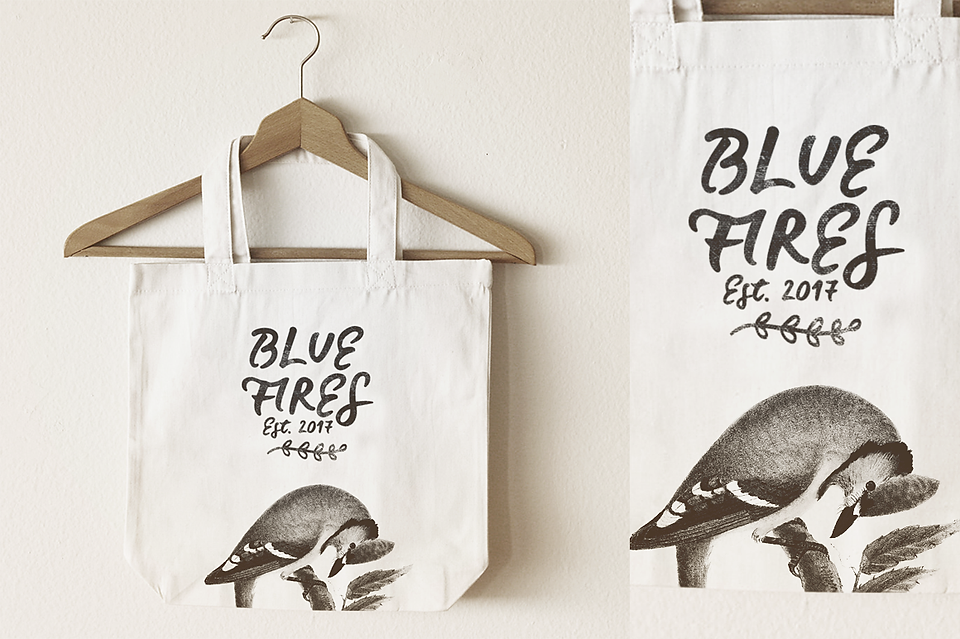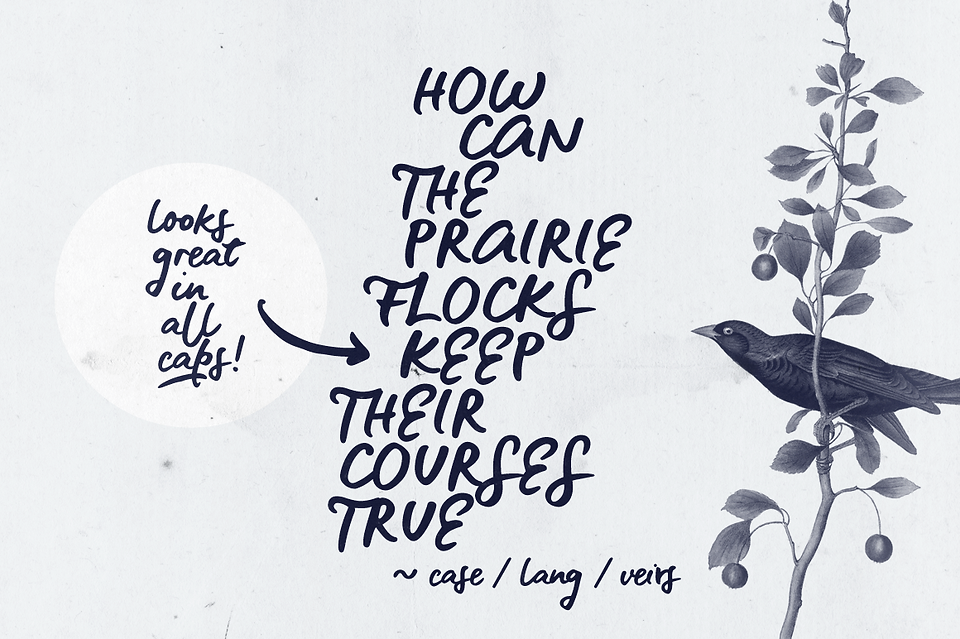
New font! Blue Fires
Here's a new font! It's called Blue Fires, after this amazing song, and it's a casual brush font.
I had initially wanted to make a more textured font, with a dry brush feel, but I had brand new brush pens and when I started writing, I noticed how different from my other two brush fonts (1, 2) it looked. Even with the same type of brush pen, this text had much less contrast, and I just needed to capture it in a new font.
So, here it is! A quick and easy handwritten font, with oodles of ligatures and bonus swashes, circles, arrows and ornaments to decorate you texts.
Blue Fires can be used for quotes, logos, packaging, and merchandise. It is a versatile font that looks great in both short bursts and longer texts, in lower case and all caps. Check it out below!
Blue Fires